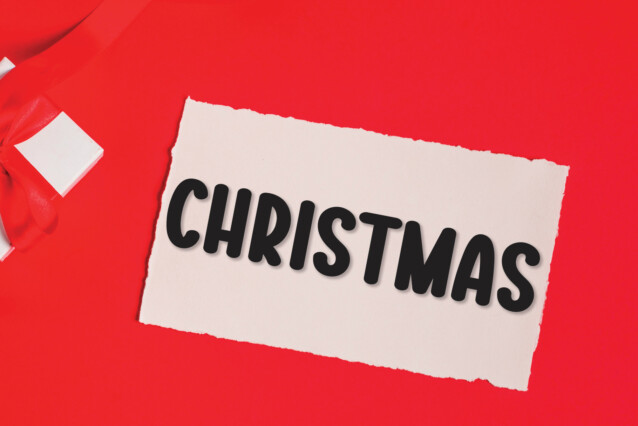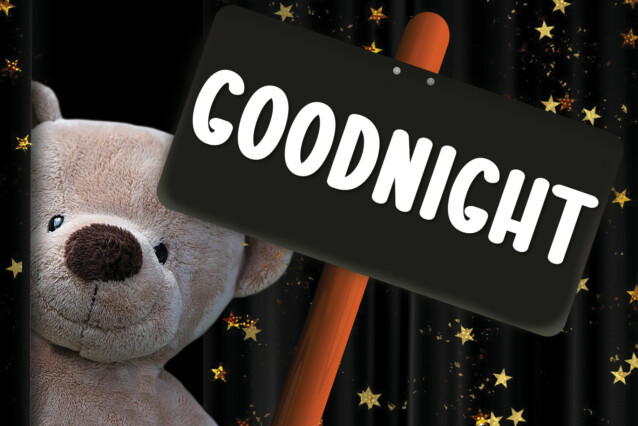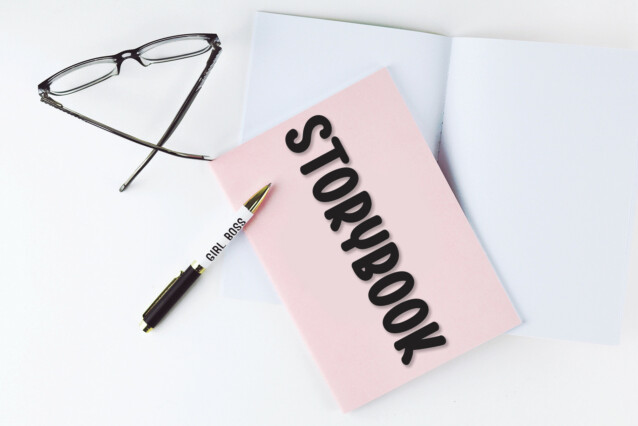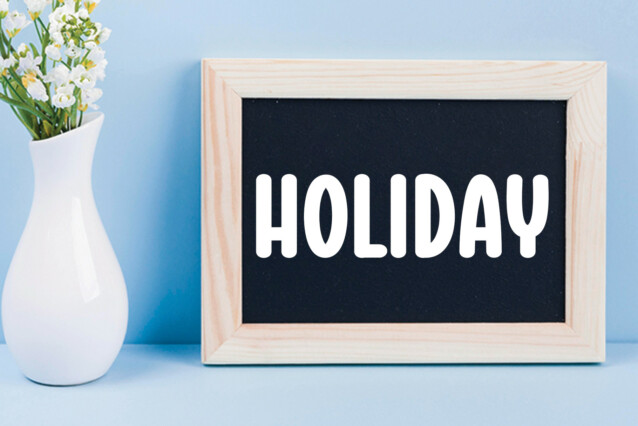
Thick Design Display Font
Thick Design Display Font is a cool and casual handwritten display typeface with characters that dance along the baseline. It will add a unique spark to any design project that you wish to create!